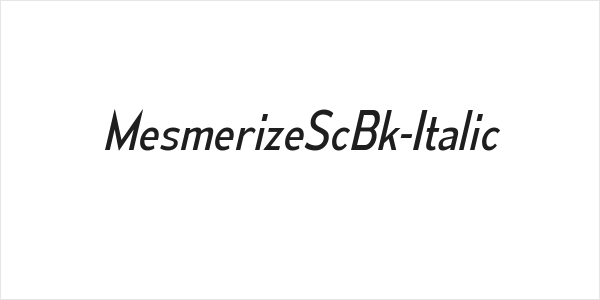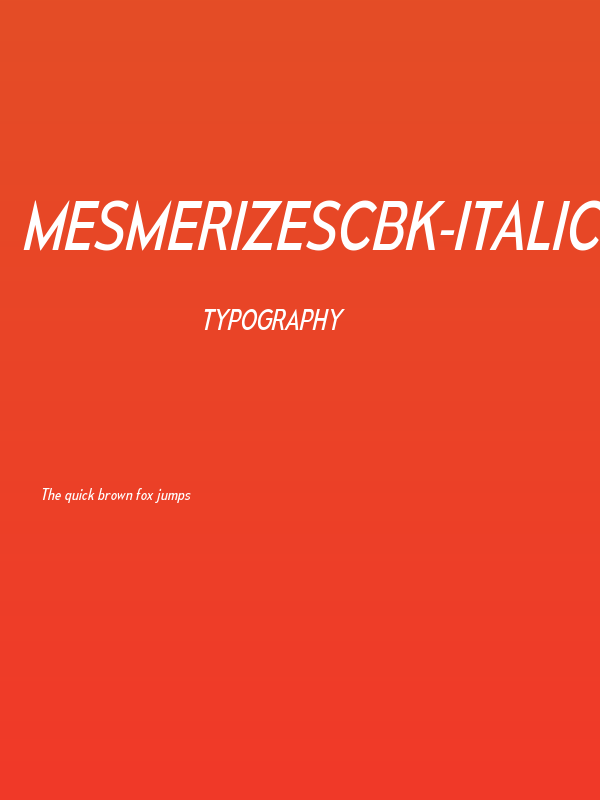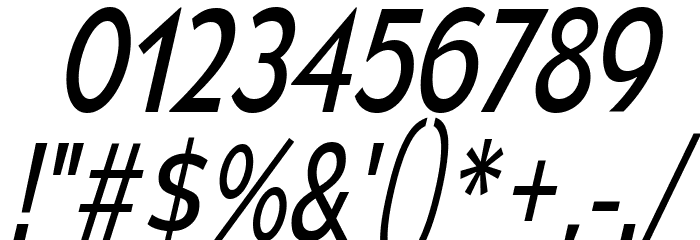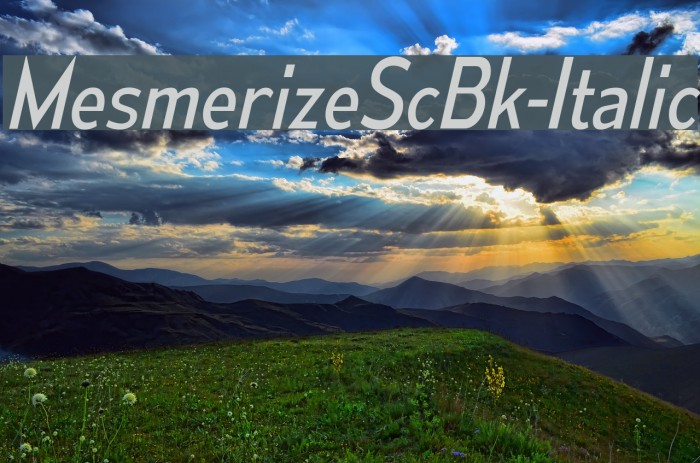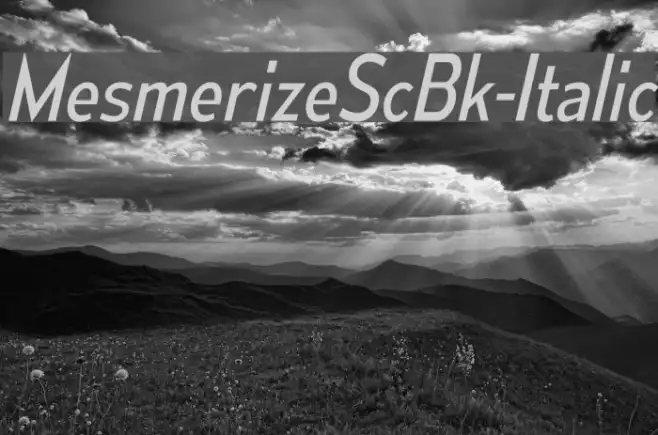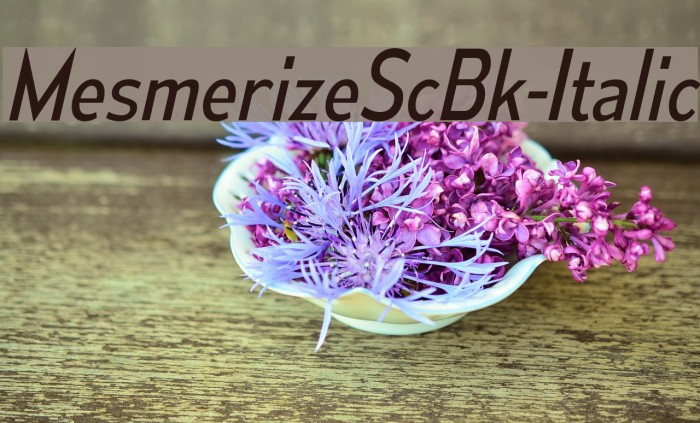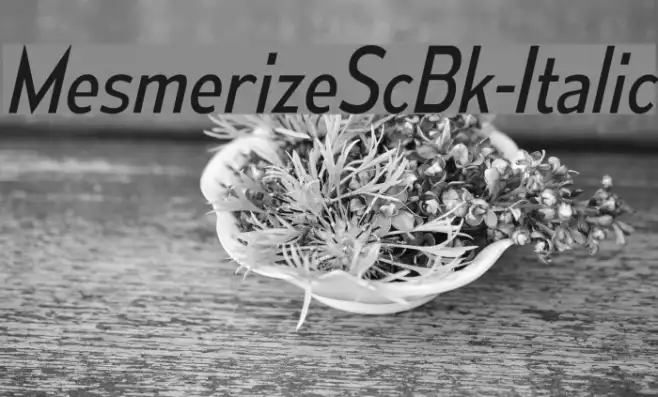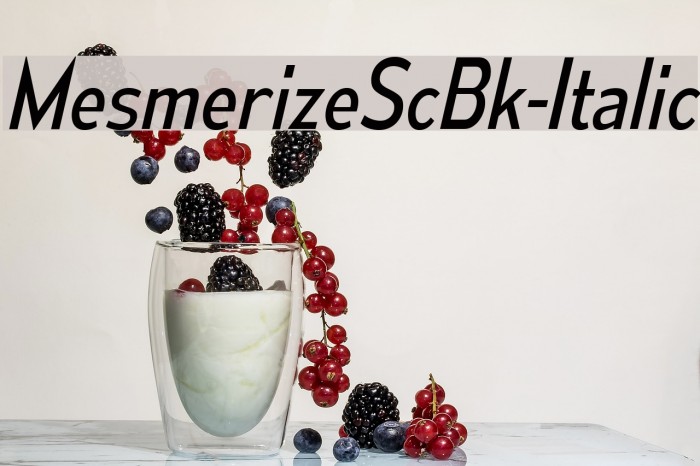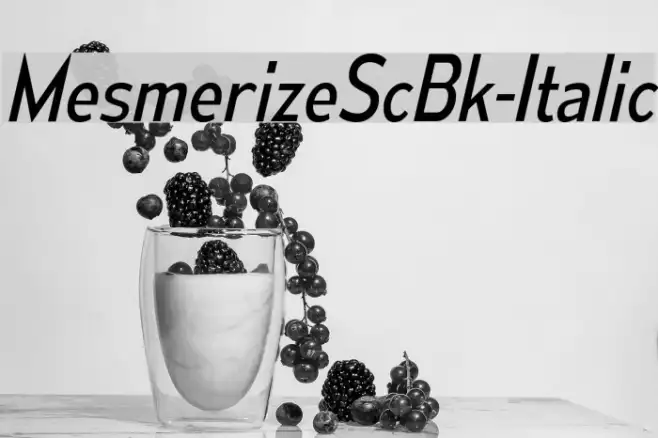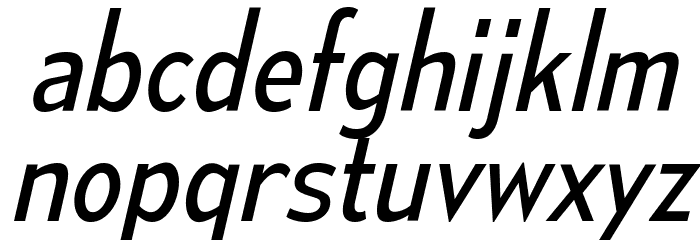
MesmerizeScBk-Italic Font
MesmerizeScBk-Italic Description
This font exhibits a sleek and modern aesthetic with a distinct italic style, characterized by its smooth curves and slightly condensed letterforms. The uppercase letters maintain a consistent height, while the lowercase letters offer a harmonious balance with their slightly elongated ascenders and descenders. The numerals are clear and easily distinguishable, making them suitable for various applications. Special characters are well-integrated, maintaining the overall fluidity of the design. The font's clean lines and subtle slant give it a dynamic yet professional appearance, ideal for contemporary design projects.
| Width | Condensed |
| Use Case | Headlines, Body text, Logos |
| Proposed Projects | Ideal for branding, advertising, editorial design, and digital media projects requiring a modern touch. |